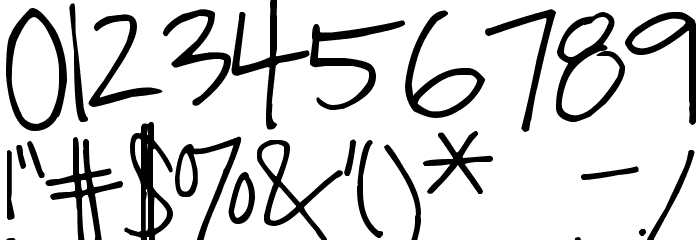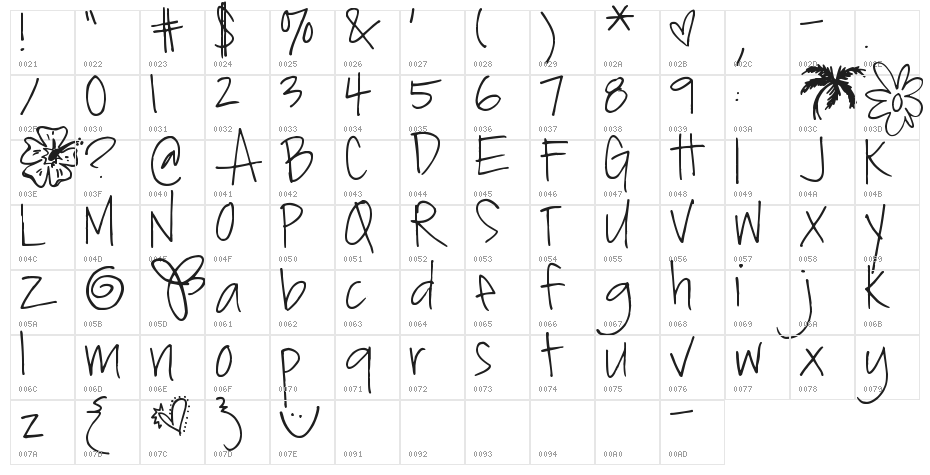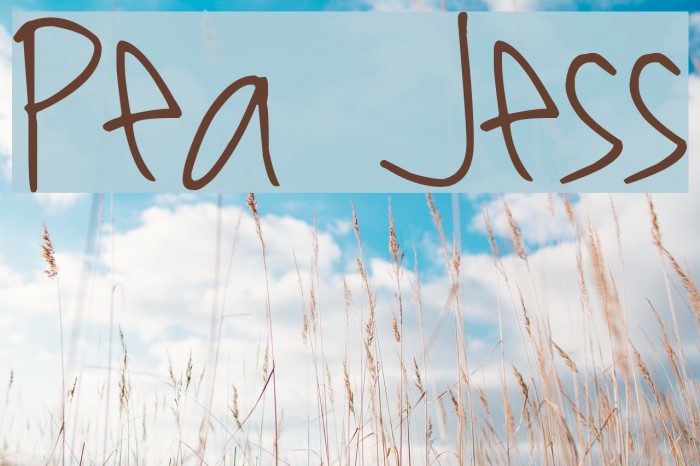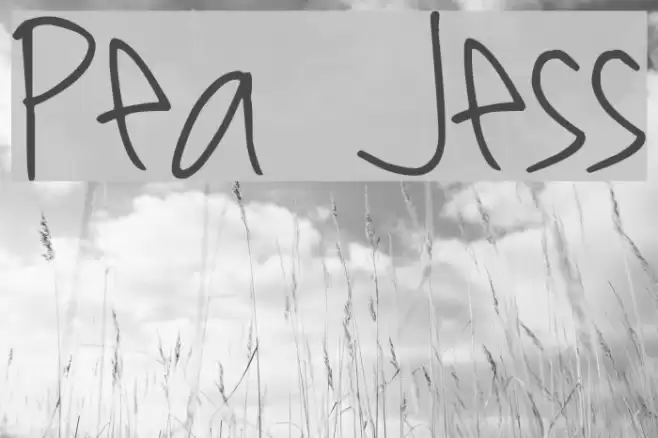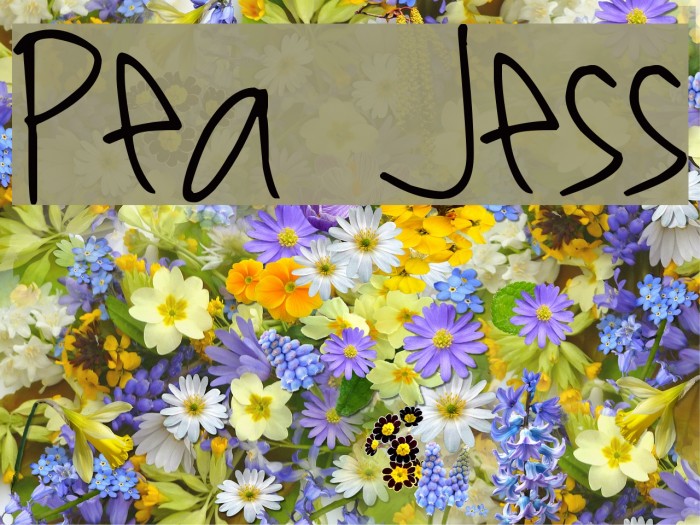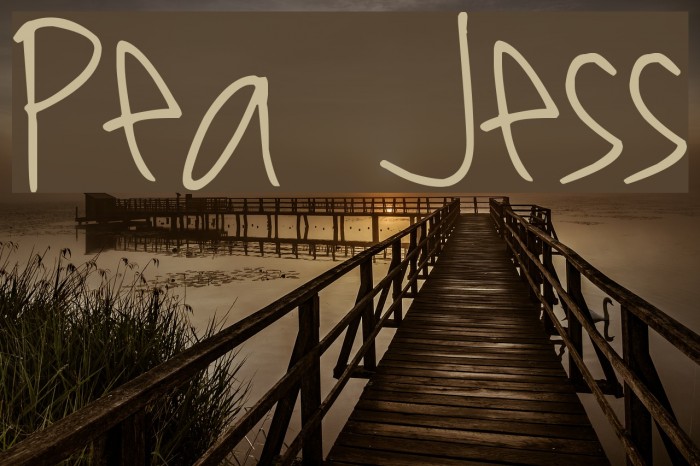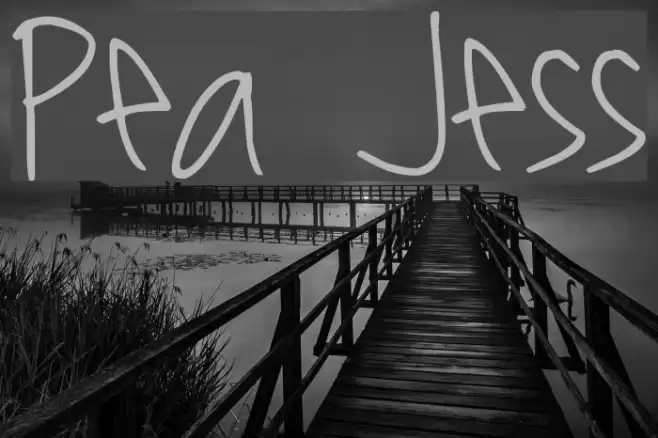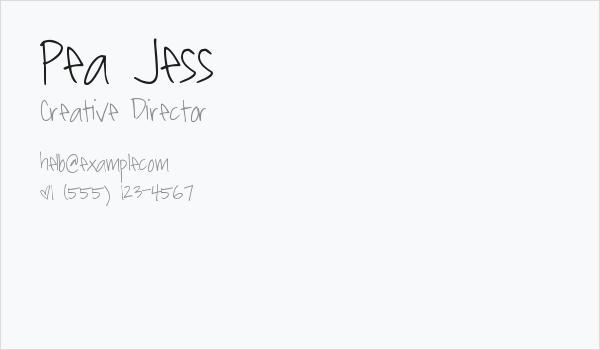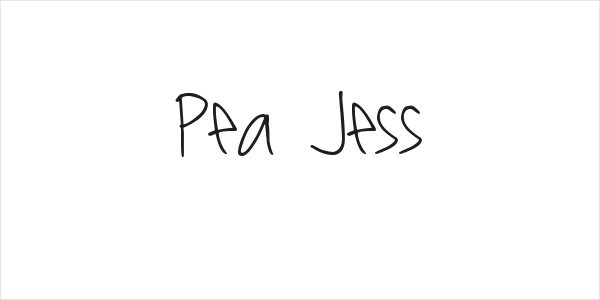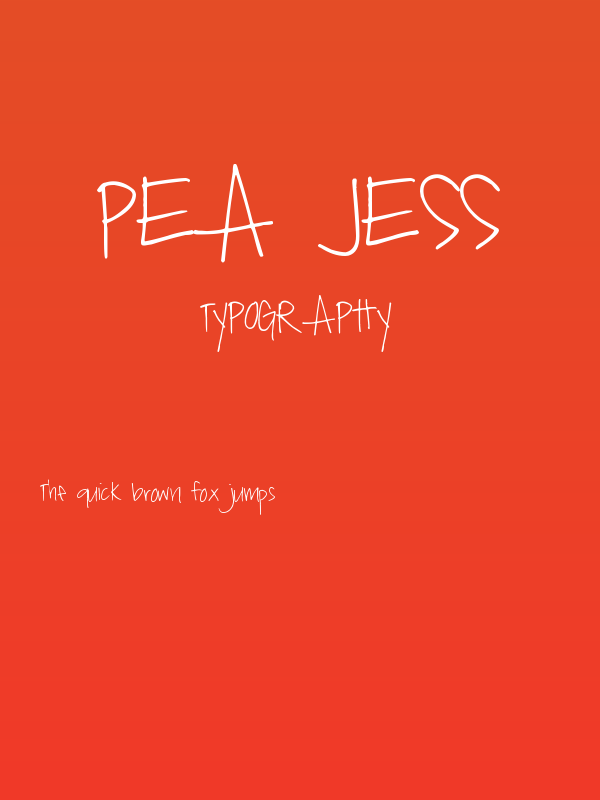
Pea Jess Font
Pea Jess Description
This font exudes a casual and playful handwritten style, characterized by its loose and informal strokes. The letters are unevenly spaced, giving it a spontaneous and dynamic appearance. The uppercase and lowercase letters maintain a consistent style, with elongated vertical strokes and slightly rounded edges. The numbers and special characters follow the same informal aesthetic, making the font suitable for projects that require a personal touch. Its overall appearance is reminiscent of quick, expressive handwriting, which adds a sense of authenticity and warmth.
Overall StyleCasual
Use CaseLogos, Headlines, Informal Text
Proposed ProjectsIdeal for personal notes, greeting cards, informal invitations, and creative projects that require a touch of personality.